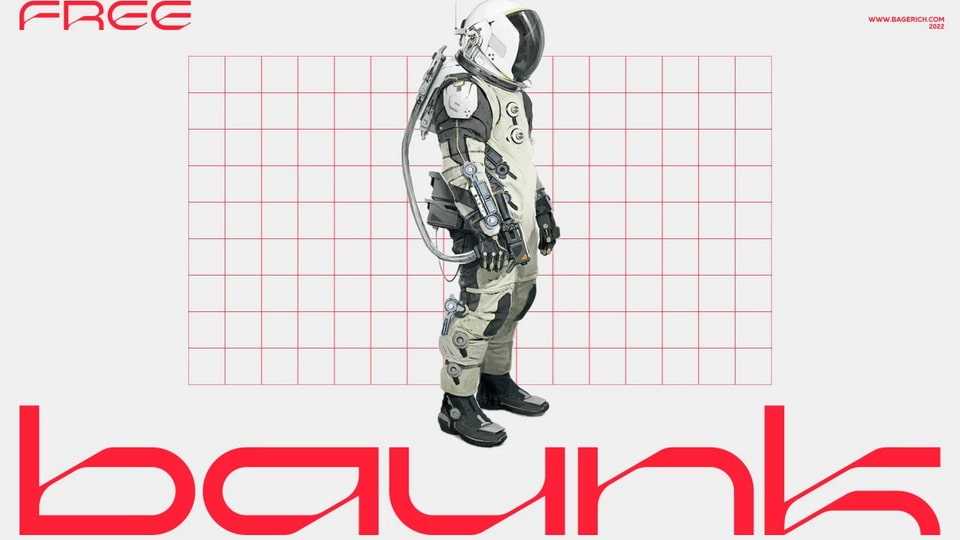
Download Baunk font, a modern futuristic typeface with unique a personality. Baunk is well suited for use for the tech and gaming space for logos, titles, packaging, web design, apps and much more.
Designer: Bagerich Type Foundry